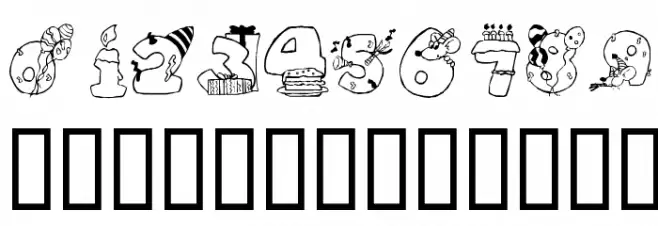
KR Birthday Numbers Font
KR Birthday Numbers Description
This font features a playful and whimsical design, with each number creatively integrated with birthday-themed elements. The numbers are adorned with party hats, candles, cakes, and balloons, giving them a festive and celebratory appearance. The style is highly decorative, making it ideal for occasions that require a fun and lively touch. The characters are bold and have a cartoonish quality, which adds to their charm and appeal. This font is perfect for adding a touch of joy and excitement to any project that involves celebrations or birthdays.
A playful, birthday-themed decorative font with numbers adorned with festive elements from Uncategorized fonts.
- Proposed Projects: Ideal for birthday invitations, party decorations, greeting cards, and festive event posters.